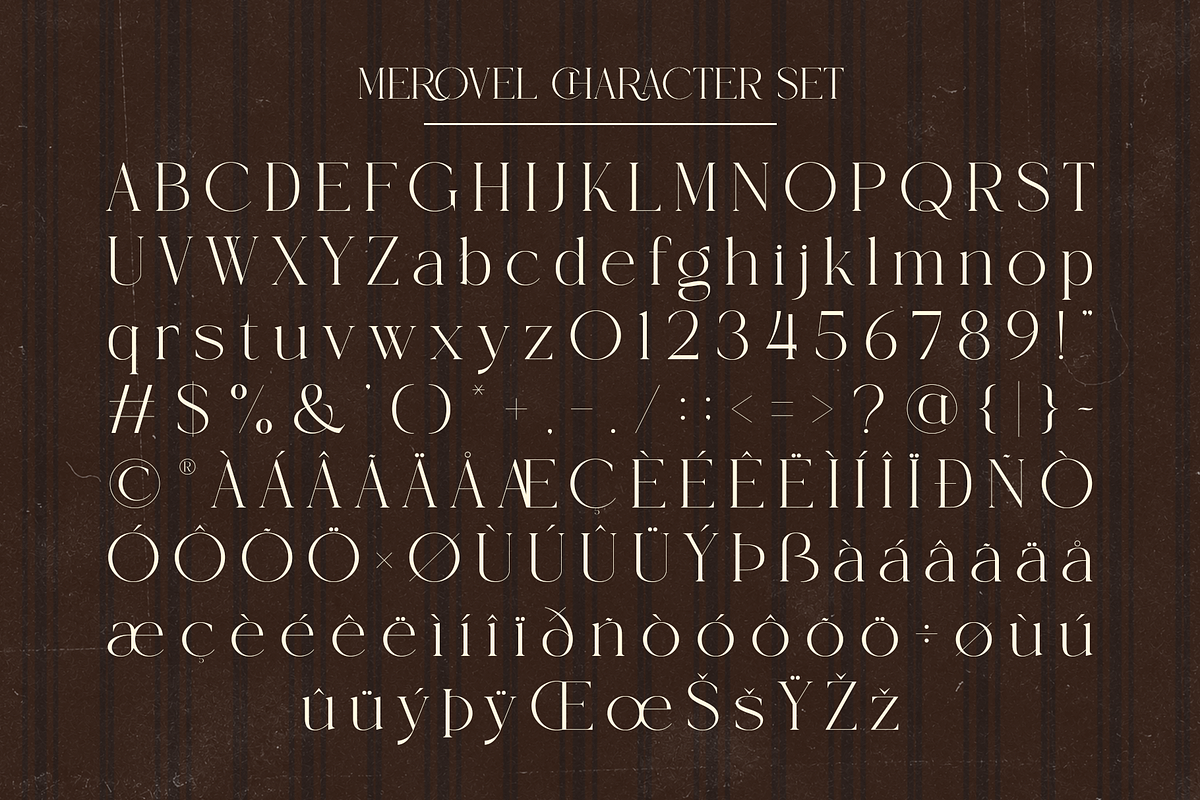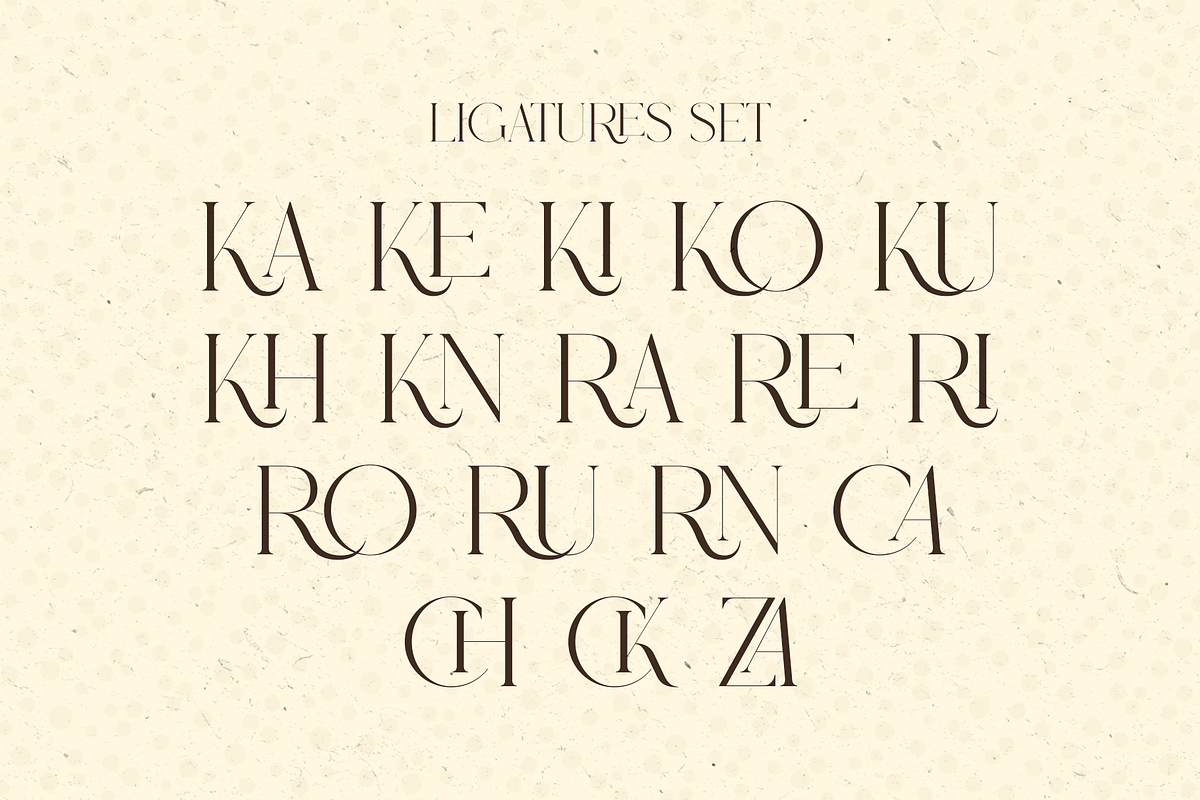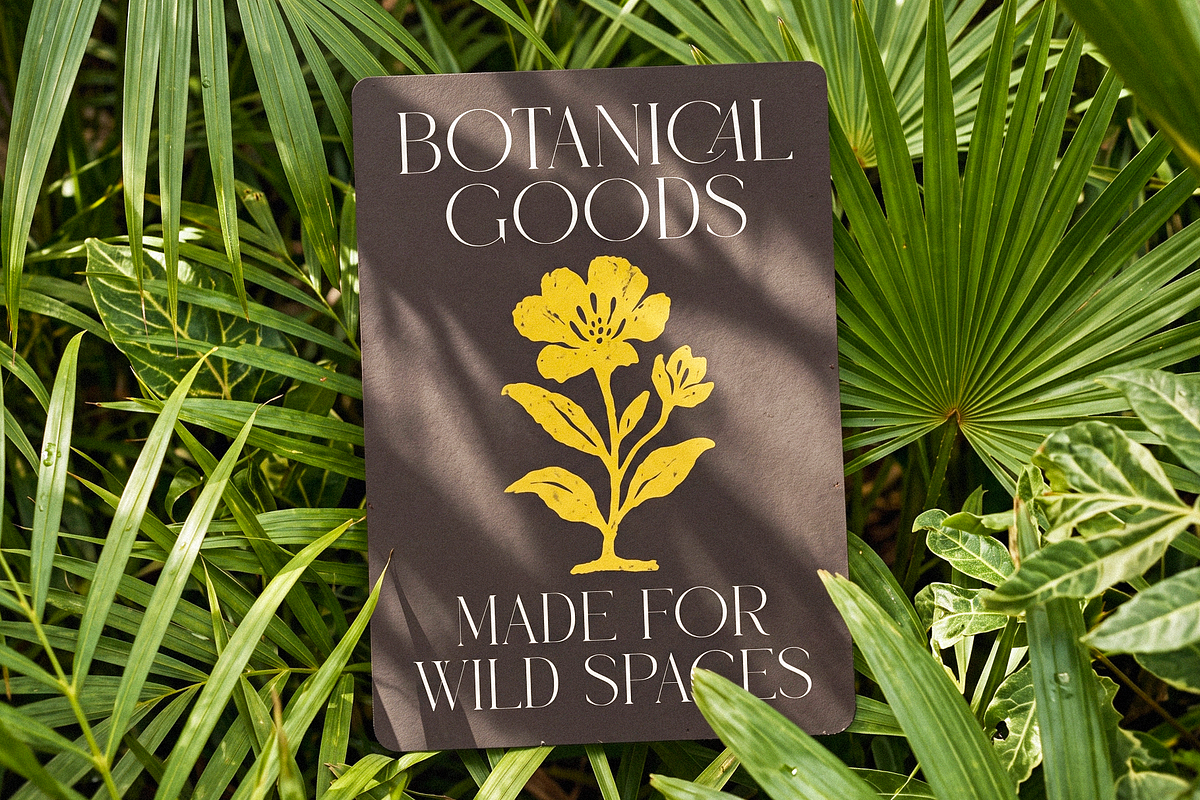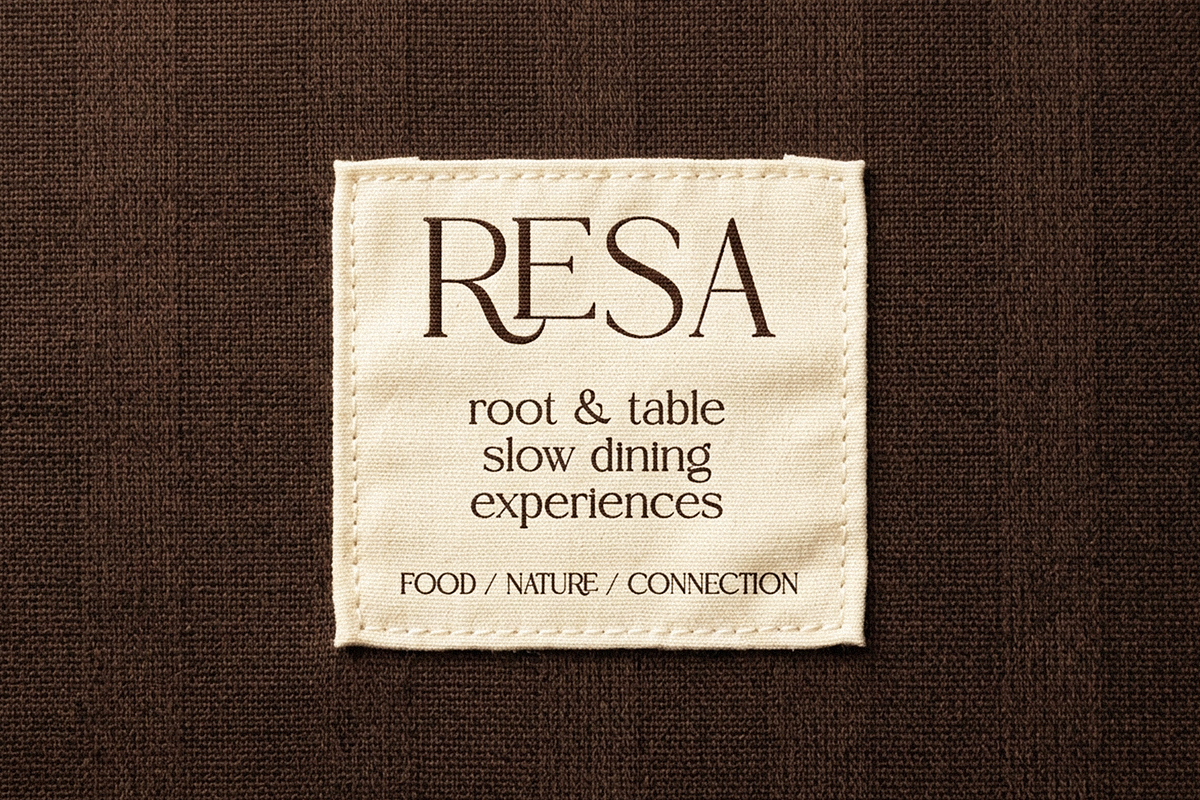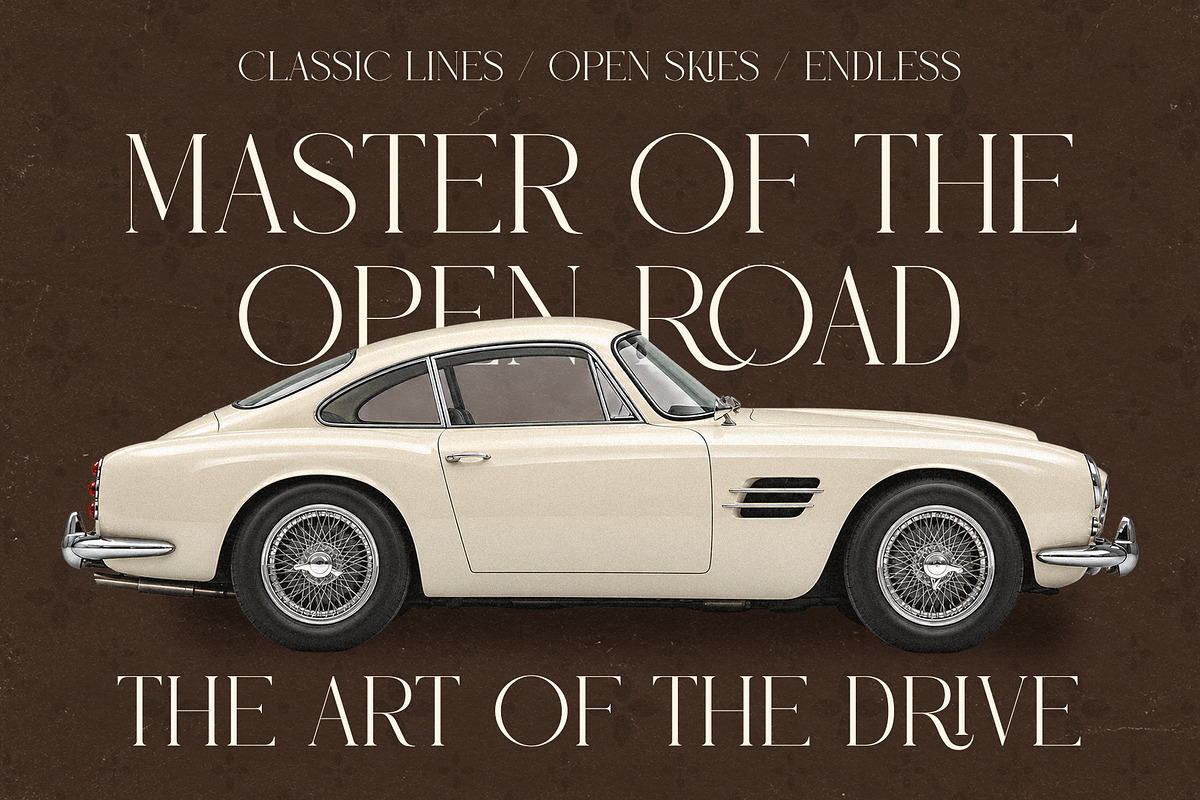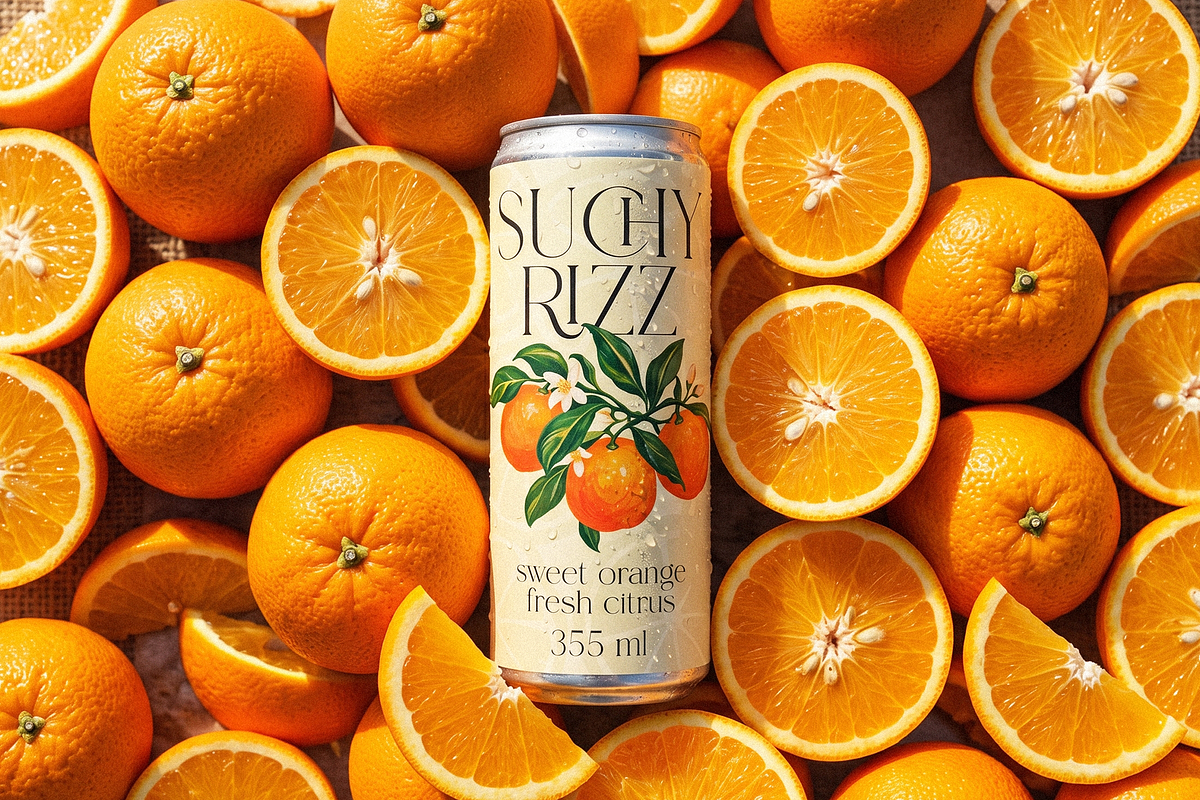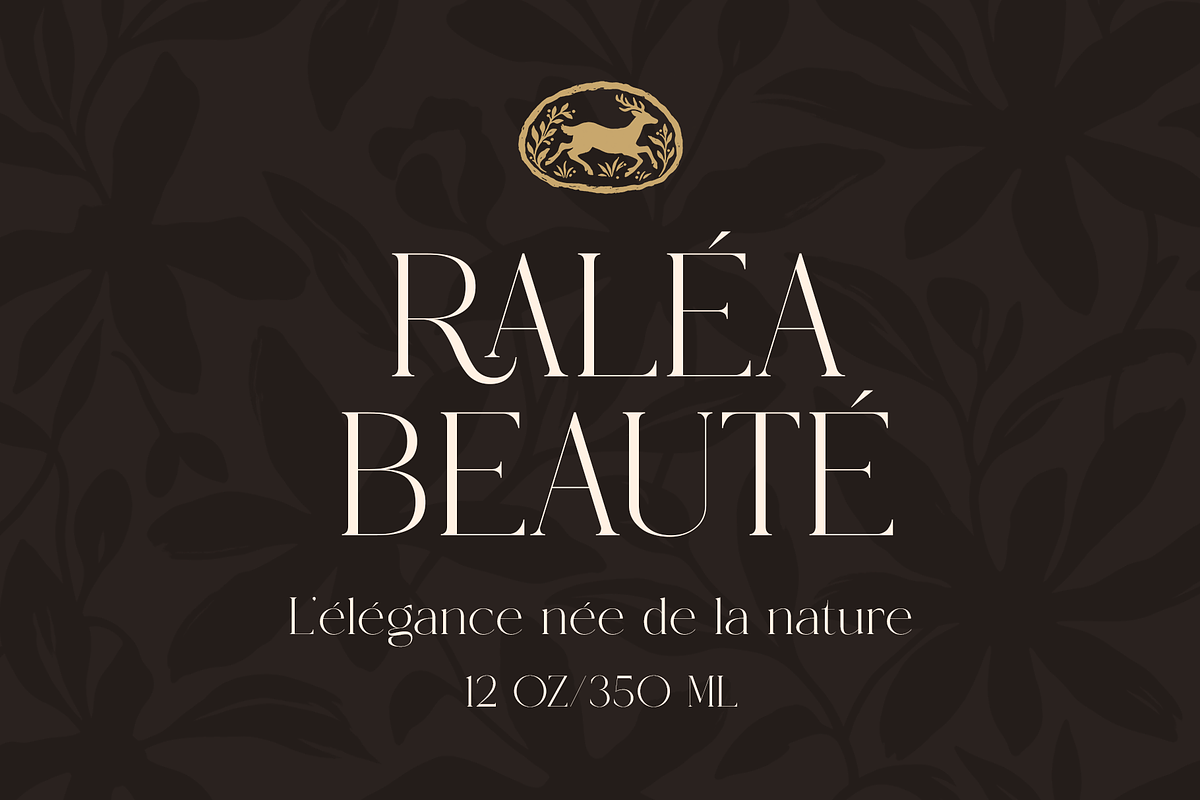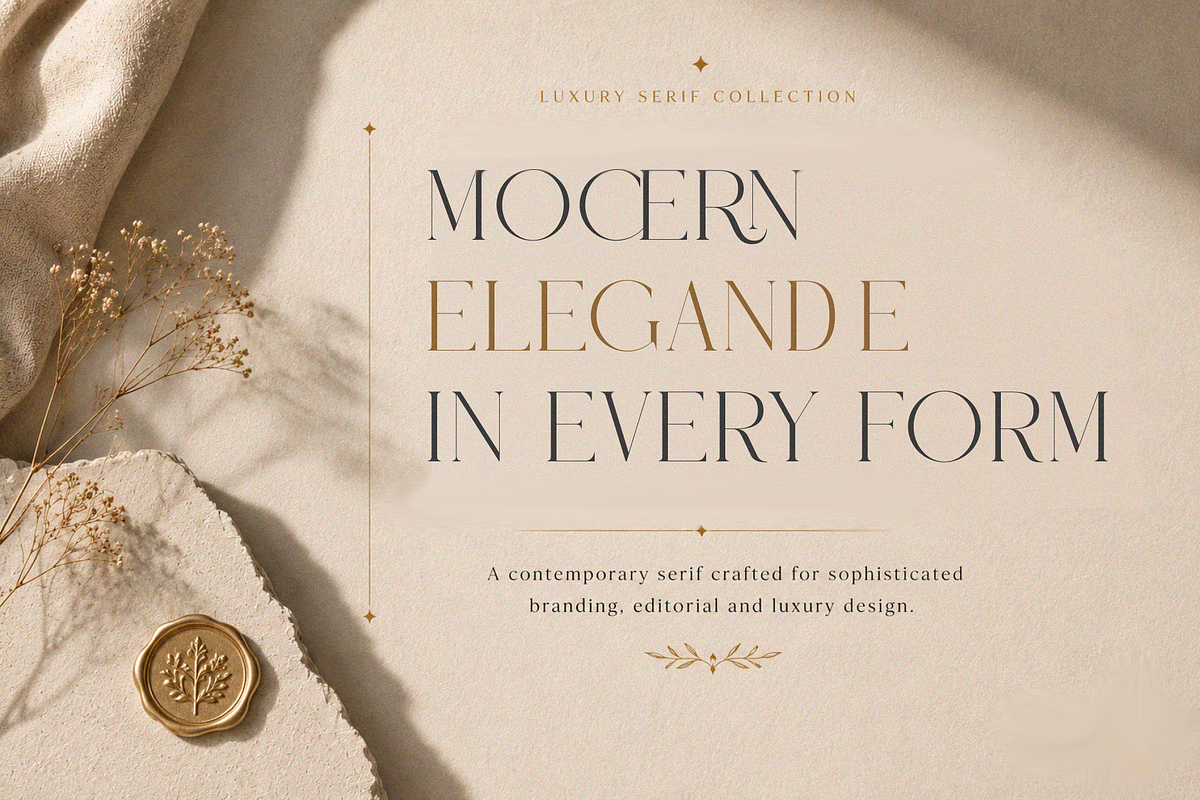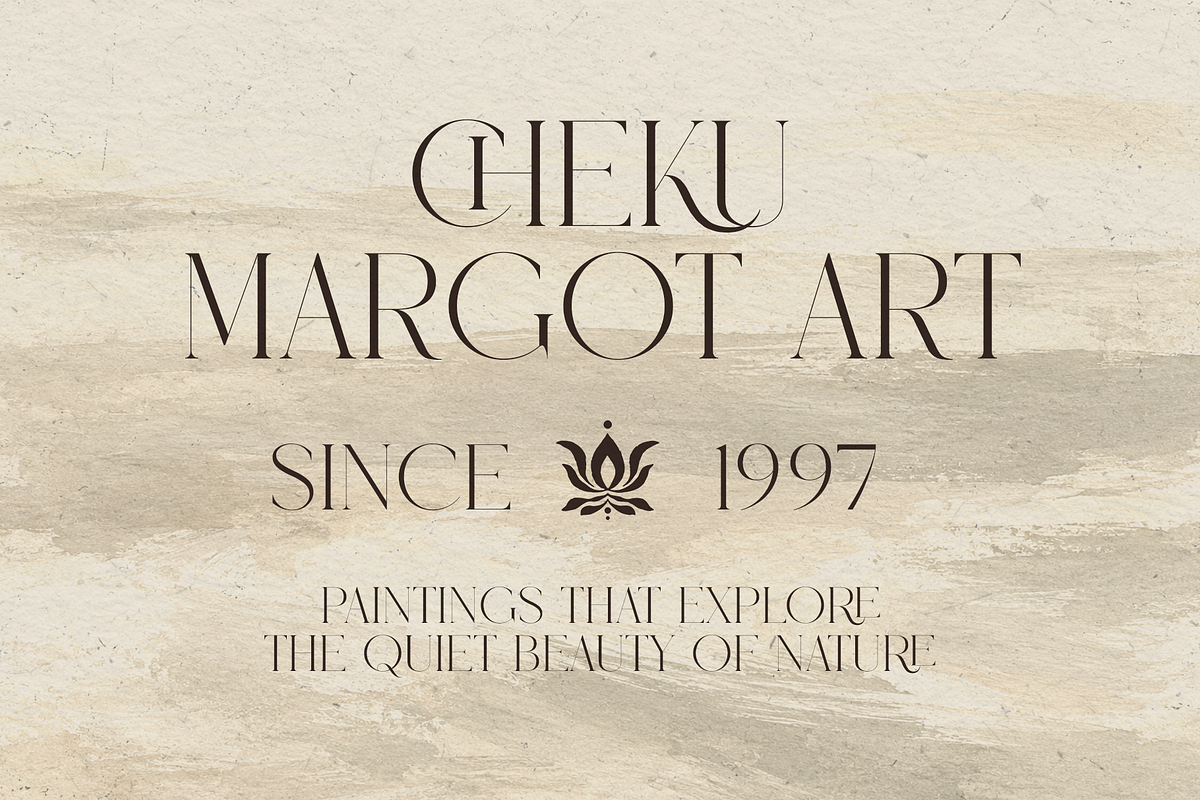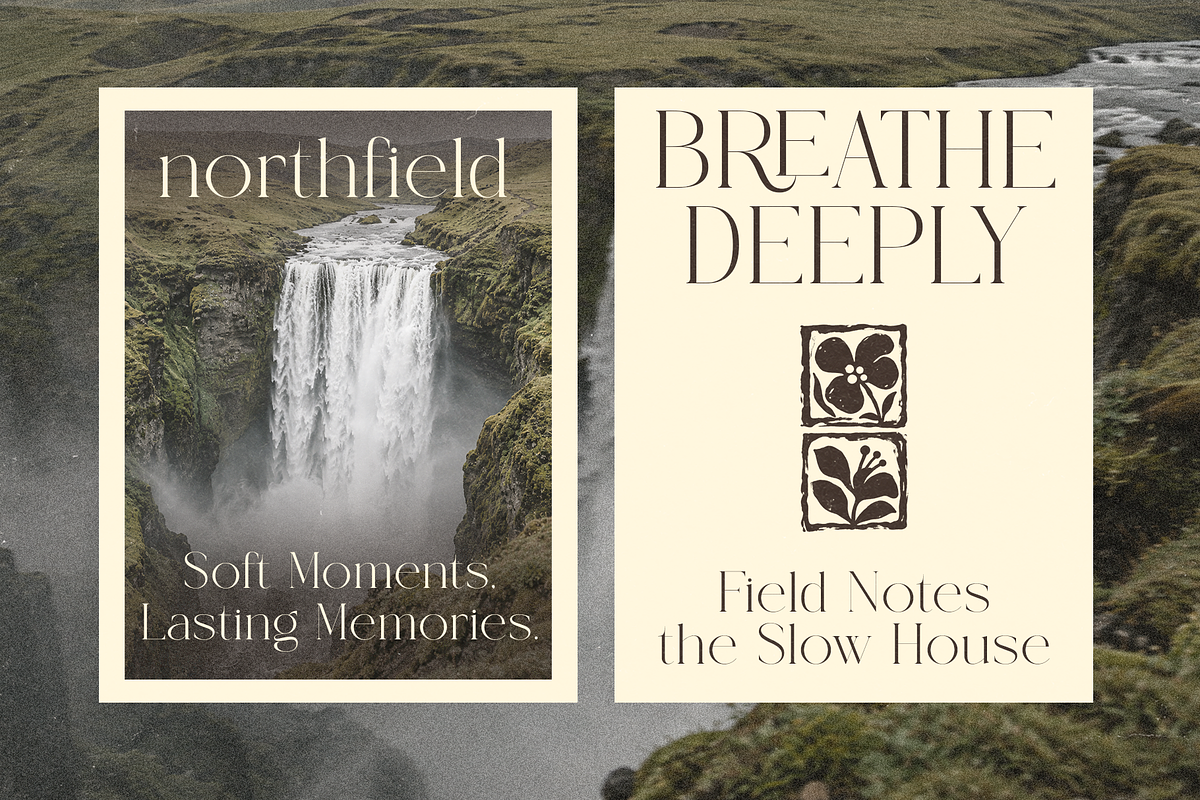
MEROVEL – Elegant Retro Serif
MEROVEL – Elegant Retro Display Serif
MEROVEL is a sophisticated retro display serif font inspired by vintage fashion editorials, timeless glamour, and feminine luxury. Designed with high-contrast strokes, delicate hairlines, and graceful proportions, MEROVEL brings an elegant and distinctive character to every design.
With its refined serif details and dramatic display presence, MEROVEL is perfect for creating luxury branding, fashion logos, beauty packaging, editorial designs, wedding stationery, invitations, magazine covers, and elegant social media graphics.
MEROVEL combines the charm of vintage typography with a polished contemporary aesthetic, making it versatile for both nostalgic and modern luxury projects. Its elegant letterforms are especially striking when used in large headlines, logos, titles, monograms, and sophisticated display compositions.
Whether you're designing a fashion brand, boutique identity, beauty label, wedding invitation, magazine, product packaging, or luxury campaign, MEROVEL adds an effortlessly glamorous and feminine touch.
* Fashion & luxury branding
* Beauty & cosmetics
* Boutique logos
* Editorial & magazine design
* Wedding invitations
* Romantic stationery
* Luxury packaging
* Fashion posters
* Magazine headlines
* Beauty campaigns
* Social media branding
* Product labels
* Monograms & initials
* Elegant typography compositions
* Vintage-inspired branding
MEROVEL is made for designs that need elegance, sophistication, romance, and a touch of vintage glamour.